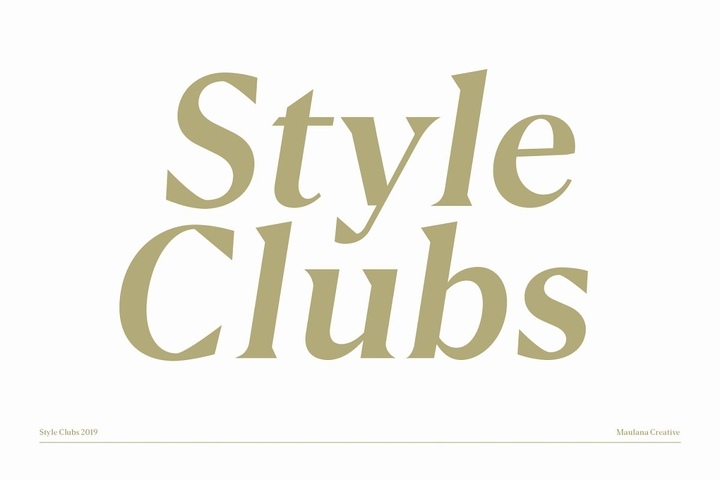
Style Clubs Serif Font
Style Clubs Serif Font is perfect for exclusive member clubs, luxury fashion brands, high-end lifestyle magazines, prestigious social organizations, elite dining establishments, upscale country clubs, sophisticated event planning, luxury hospitality branding, premium membership services, and distinguished social gatherings.
What makes Style Clubs Serif Font exciting is its exclusive sophistication that embodies the refined elegance of elite social circles and premium lifestyle experiences through stylishly crafted letterforms. This prestigious typeface combines club exclusivity with contemporary style, creating a personality that communicates distinction, membership prestige, and authentic luxury lifestyle. The font's club-inspired character and stylish appeal make it perfect for exclusive organizations, luxury brands, and premium services seeking to evoke the sophisticated atmosphere of private members' clubs and elite social experiences.
The Style Clubs Serif Font family includes Regular, Bold, Light, Medium, Elite, Exclusive, Condensed, and Premium variants. Each weight maintains the font's stylish character while providing comprehensive typographic flexibility for luxury brand identity systems and exclusive design applications across diverse premium lifestyle platforms.
Whether you're developing exclusive club identities, creating luxury lifestyle materials, designing premium membership campaigns, or building sophisticated social branding, Style Clubs Serif Font delivers unmatched club appeal and exclusive sophistication. Its prestigious presence makes it perfect for private clubs, luxury fashion houses, premium lifestyle brands, and elite organizations seeking authentic exclusive representation.
The font's refined proportions and stylish details create an distinguished reading experience that evokes the elegant lounges of exclusive clubs and sophisticated social gatherings. Each letterform has been carefully crafted to convey membership prestige, social distinction, and luxury lifestyle that resonates with elite audiences seeking premium experiences and exclusive access.
This versatile typeface excels in luxury environments, offering designers the exclusivity needed for comprehensive club brand communication strategies. The extensive character set includes elite alternates, exclusive ligatures, and premium symbols for luxury lifestyle market positioning and club brand storytelling.
Embrace the power of exclusive design that celebrates club culture and authentic premium lifestyle experiences.